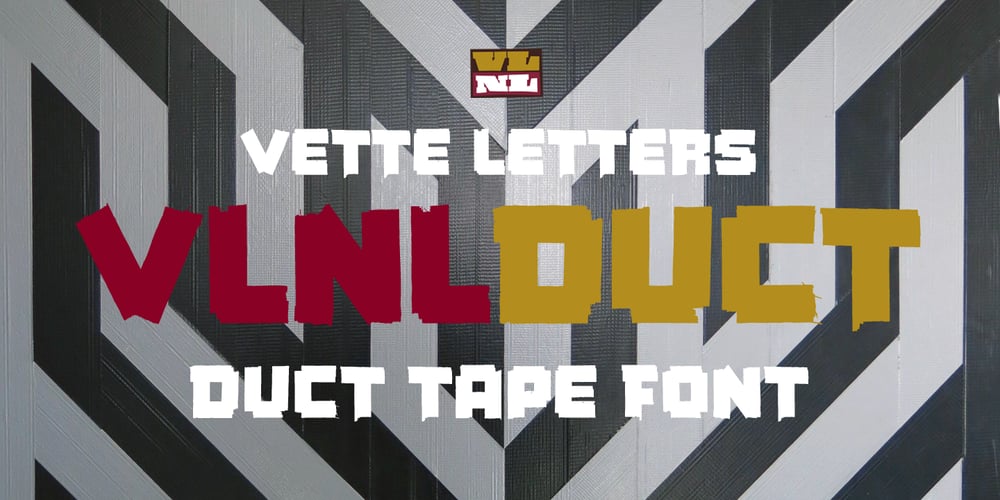
VLNL Duct
VLNL Duct font
VLNL Duct Font Family was designed by Donald Beekman and published by VetteLetters. VLNL Duct contains 1 styles and family package options. Duct tape is one of the most versatile adhesive materials known today. From fixing the bumper of your car that keeps falling off, to creating a sturdy wallet. From alternative wrapping to sticking a friend to the wall, Duct tape is there. And it will stay there. It will stick to anything and hold for a very darn long time too! The cloth-backed tape was invented some time during World War II, and also proved itself useful as a base material for lettering. VLNL Duct was originally designed by DBXL as a logo for temporary Amsterdam restaurant BAUT. DBXL imagined an owner taping the name on the window of his shop using Duct tape. The font was used for all communication of the restaurant. Duct is a sturdy, rough all-caps typeface that will stick to anything.